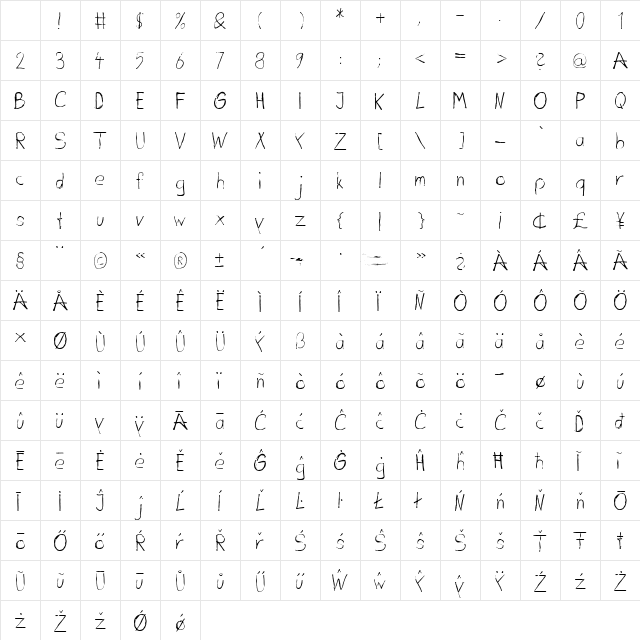
Complete dirtyDeoHandInk Regular glyph index. Displaying only characters natively supported by dirtyDeoHandInk Regular font.
dirtyDeoHandInk flows with the natural rhythm of handwritten lettering, making it ideal for designs that call for warmth and personal expression.
Font Pairing: Combine dirtyDeoHandInk with a simple geometric sans for maximum contrast - the tension between flowing curves and clean structure is a classic typographic pairing.
Pro Tip: Use dirtyDeoHandInk for short runs of text - names, titles, or taglines. Extended body copy in script faces tires the eye quickly.